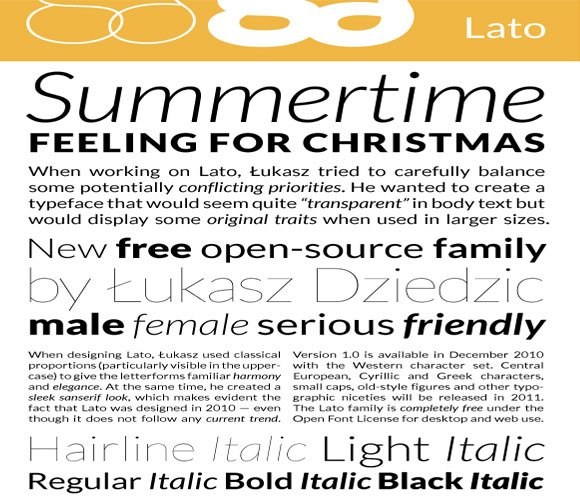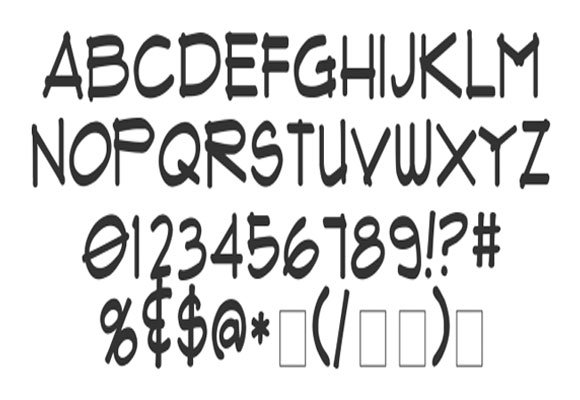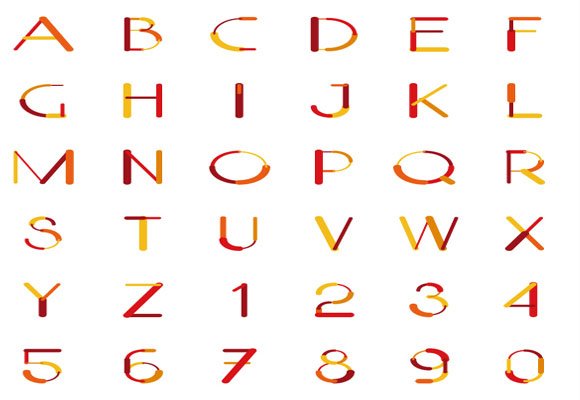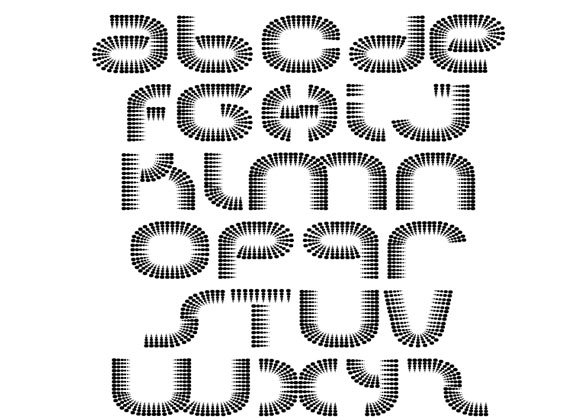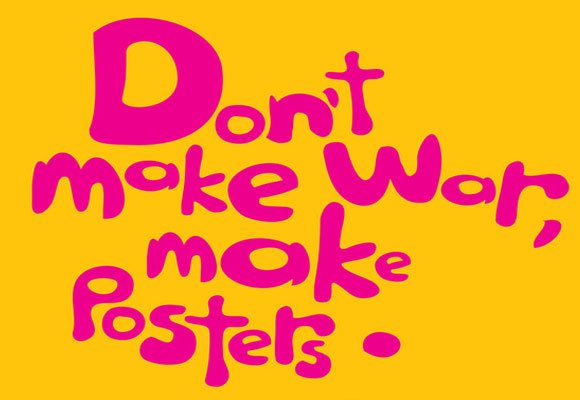
Over the internet, you get endless variety of Fonts ranging from normal to conventional-looking typefaces, novelty candy cane, handwritten and bunny fonts. How to choose right Font from this never-ending list of Fonts? Pick a font that suits best to your design and expressing your message aesthetically and appropriately. Oftentimes, picking a right font becomes really tough. You should always go for a right balance of expressive and stylish Versus useful and appropriate. It’s always a good idea to know your font family.
Best collection of High-Quality Fonts for Web Designers
In this post, we are going to present a best collection of high-quality fonts for web designers with a brief overview. We have searched hard for them and picked some really amazing fonts to save your precious time and help you out with your current projects. In this collection, we have put together a couple of high-quality fonts such as Kilogram, Pompadour Numeral Set, Franchise, Lato, Flux Architect, Espinosa Nova, Bada Bing, Palm of budhha, Color Lines, Alpharuler, Soda, Merge, Orial, Baurete, Branko Kockica and many other cool fonts.
Below, we have put together some really awesome high quality Fonts types that have really inspired us. Our main purpose is to present you the best collection of downloadable wonderful Fonts to save your precious time. Communicate the message effectively by selecting most appropriate Fonts.
Kilogram
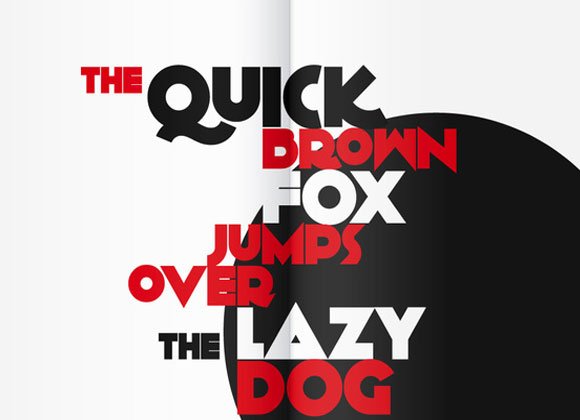
Description: Kilogram is a free font redesigned version of Nick Curtis old free font Anagram. Have a look. Enjoy!
Pompadour Numeral Set
Description: Andy Mangold designed Pompadour Numeral Set – an amazing set of fonts available under a Creative Commons License. Creative people can use these wonderful numeral font set for packaging design, logo design etc. Interestingly, these beautiful fonts are easily available as both TrueType and OpenType fonts for free download.
Franchise
Description: FRANCHISE is awesome new display fonts absolutely free-to-use and free-to-download for both commercial and personal purpose. The Franchise Bold typefaces are used by designers especially to communicate message quickly and uniformly without compromising the style.
Lato
Description: Lato is a free open-source san-serif typeface family designed exclusively by Warsaw-based designer Łukasz Dziedzic. Interestingly, the semi-rounded details of the letters provide the Lato Fonts a feeling of warmth whereas it’s strong structure exhibit stability and seriousness. The entire family of Lato typefaces consist of five weights (plus corresponding italics) including hairline style, Western character set, improved screen quality (better hinting), pan-European Latin, Cyrillic and Greek extensions.
Flux Architect
Description: Flux Architect is the popular architectural font perfect for technical drawings and design presentations. These beautiful typefaces are licensed as Free and available out over the web to download for both personal and commercial usages. Enjoy!
Espinosa Nova
Description: Cristóbal Henestrosa designed Espinosa Nova Font is a revival based of the types mostly used by Antonio de Espinosa in the 16th century Mexican printer and quite probably the first punch cutter anywhere on the American continent (1551). This outstanding Font family is used for setting text such as small caps; five sets of figures – old-style and lining, both proportional and tabular, plus tabular small caps; many “f” and long “s” ligatures and a capital sharp “S” (U+1E9E)..
Bada Bing
Description: Bada Bing is an opentype font created by Zwarte Koffie available out there over internet as a Free to download for personal as well as commercial usage.